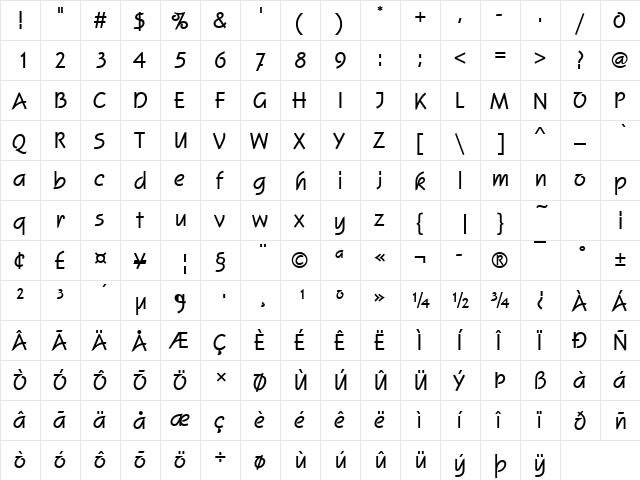
SquireD Bold Font Preview
SquireD Bold
SquireD Bold Font Details
Design Context for SquireD Typeface
SquireD takes a measured approach to typography — its balanced proportions and neutral character make it a reliable workhorse for both digital and print work. Its bold stroke weight gives it real presence on the page.